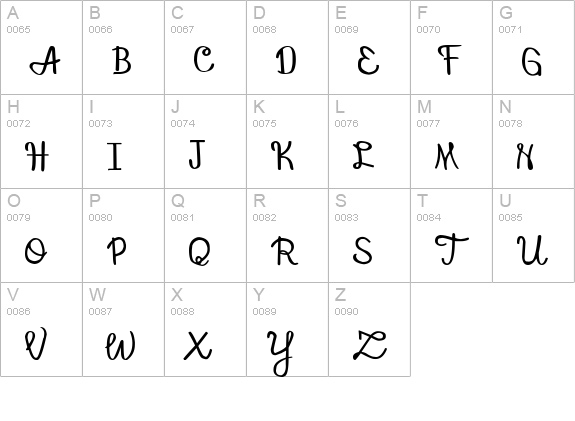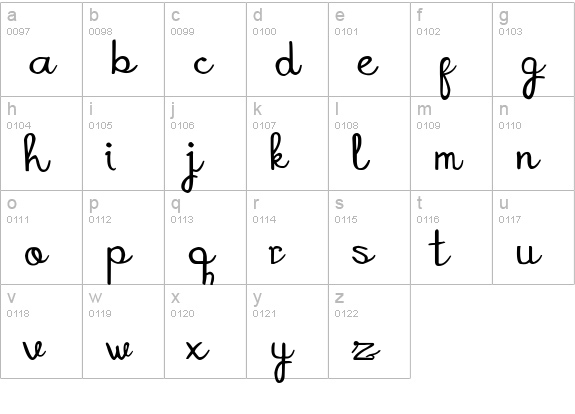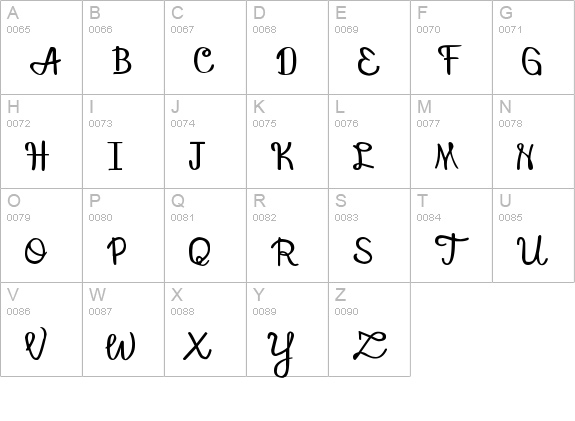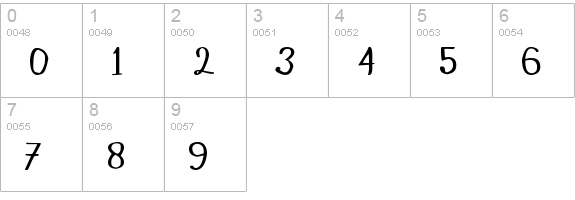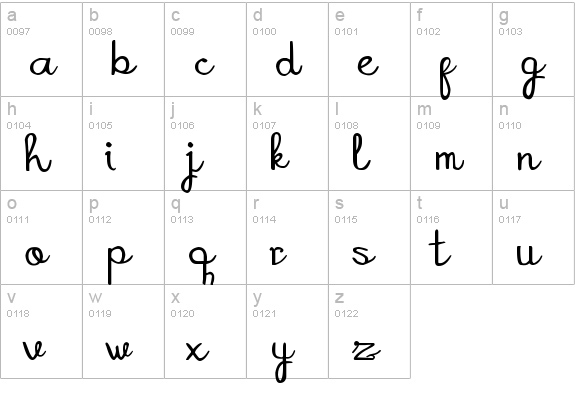
Montezema is a free for personal use font in the Script category, designed by johndesign540. It has been downloaded 66 times and is available for Windows, Mac and Linux.
Introducing Montezema, a stunning and sophisticated display font that exudes elegance and charm. With its intricate details and stylish curves, Montezema is perfect for adding a touch of luxury to your designs. This font is ideal for branding, invitations, packaging, and more.